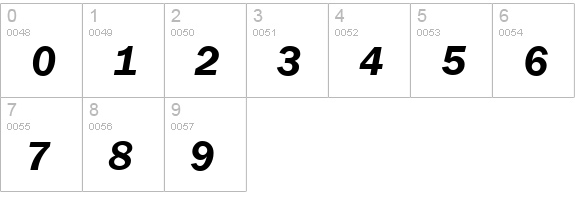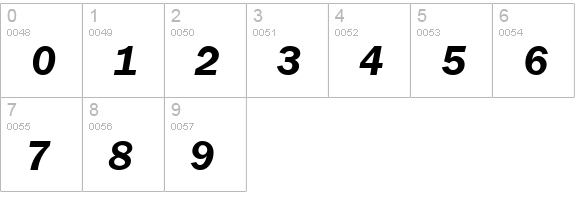
Franklin Gothic New Bold Italic font is a striking and versatile typeface that exudes a sense of modernity and sophistication. Its bold and italic styling creates a strong visual impact, making it perfect for headlines, titles, and other design elements that need to command attention. This font features a clean and sleek appearance, with sharp edges and a contemporary feel that makes it suitable for a wide range of design projects. Whether you're creating posters, advertisements, or branding materials, Franklin Gothic New Bold Italic will help your text stand out and make a statement. Best of all, this font is available for free download at FontsMarket.com. Take advantage of this opportunity to enhance your designs with the bold and dynamic Franklin Gothic New Bold Italic font today.